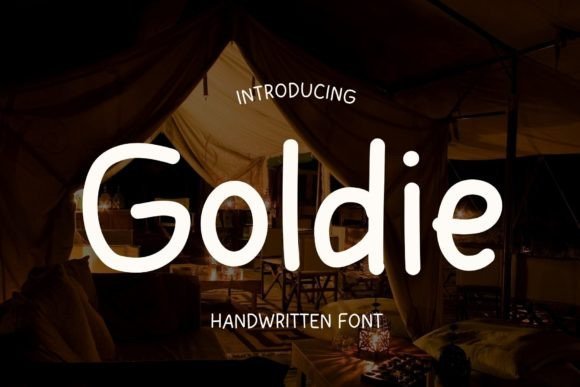
The Perfect Blend of Whimsy and Authenticity: Introducing Goldie Font
Have you ever sat down with a blank page, a blank canvas, or a blank screen, and suddenly the creative juices start flowing? That’s exactly what happens when you have the right tools at your fingertips. For many designers, the perfect font can be the spark that sets their imagination ablaze. And if you’re looking for a font that embodies playfulness and authenticity, you’re in luck.
Meet Goldie Font, the charming handwritten font that’s perfect for bringing your designs to life. Whether you’re working on a blog post, a logo, or a branding project, Goldie Font is the ideal choice. Its unique style and versatility make it a valuable asset for designers, allowing them to add a touch of personality to their work. With Goldie Font, you can create stunning designs that are sure to captivate your audience.
Key Features of Goldie Font
- Unique Characteristics: Goldie Font features a unique, hand-drawn design with a mix of modern and vintage elements, making it suitable for a wide range of creative projects.
Designer Review: Goldie Font
Overall, I’m quite pleased with the Goldie Font. It has a certain ✨ whimsical charm to it that could work well in a variety of design contexts.
Here are some of the things that stand out:
- ✨ Unique letterforms: The Goldie Font has some truly one-of-a-kind letterforms that add a lot of visual interest to any text.
- ✨ Friendly feel: The font has a friendly, approachable feel that would be perfect for children’s books, greeting cards, or other designs where a playful tone is desired.
- ✨ Versatility: Despite its playful feel, the Goldie Font is surprisingly versatile and could work well in a range of different design contexts.
- ⚠️ Limited font sizes: The Goldie Font may not be the best choice for large-scale text, as the letterforms can become a bit overwhelmed at larger sizes.
- ⚠️ Limited language support: The font may not have full support for all languages, which could be a problem for designers working on multilingual projects.
Overall, I think the Goldie Font is a great choice for designers looking to add a bit of whimsy to their projects. Just be aware of its limitations and use it accordingly.
Tips for Getting the Most Out of Goldie Font
Use the Goldie Font to add a touch of elegance and sophistication to your designs.
Pair the Goldie Font with a clean and minimalist design aesthetic for the best results.
Experiment with different font sizes and colors to create visual interest and emphasis.
Comparison to Goldie Font: While Goldie Font is a modern sans-serif font, Playfair Display is a classic serif font. Playfair Display is more suitable for formal and traditional designs, whereas Goldie Font is ideal for modern and minimalist designs.
Goldie Font is a sans-serif typeface, making it ideal for modern designs, digital interfaces, and corporate branding. Its clean and minimalistic design ensures readability and visual appeal in a variety of contexts.